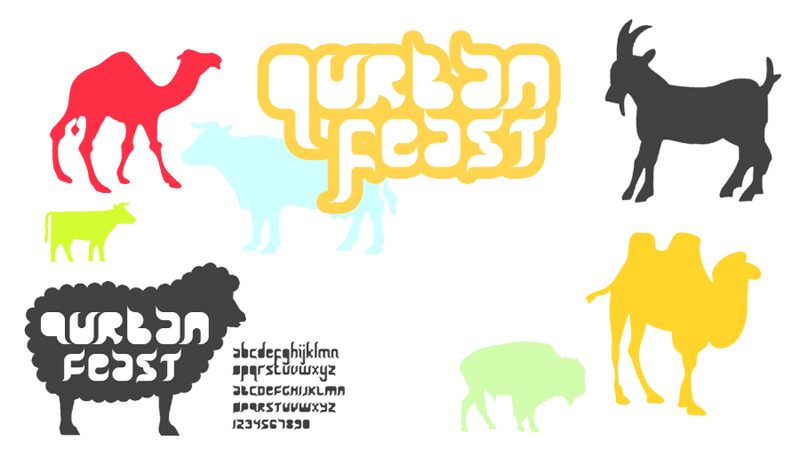
Qurban Feast by Adien Gunarta of FSI FontShop International GmbH is a free Thai display font with a dense, rounded silhouette. Broad strokes curl into deep hooks and compact loops, giving the lettering a strong horizontal flow. Repeated cut-ins keep its heavy forms lively.
Its sculptural shapes suit festival posters and cultural event graphics, where the lettering can become part of the decoration. The same rounded mass also fits food packaging and music artwork, especially when a warm, celebratory voice is wanted. Across these uses, the hooked forms link the type to ornament and make it feel closer to a graphic motif than neutral text.
Qurban Feast
Adien Gunarta